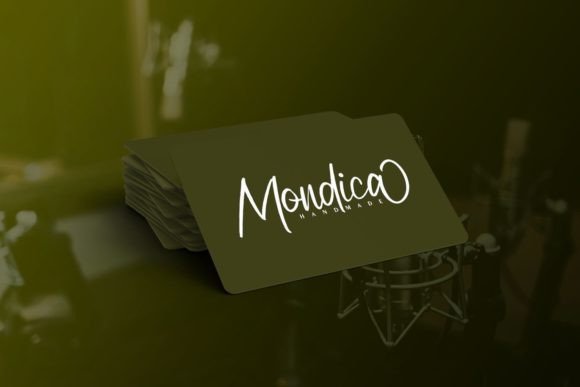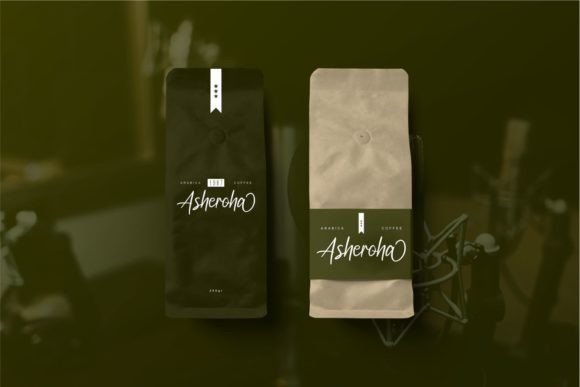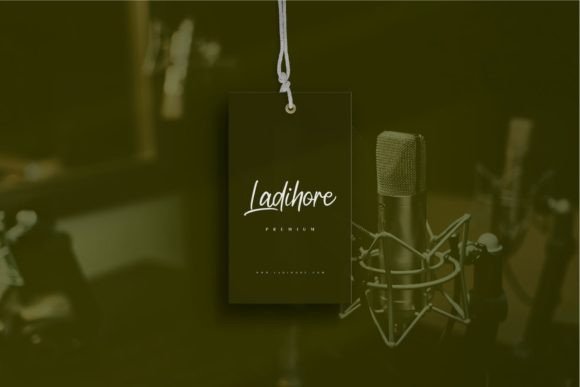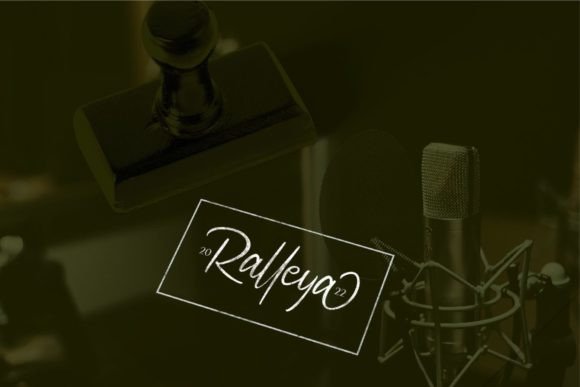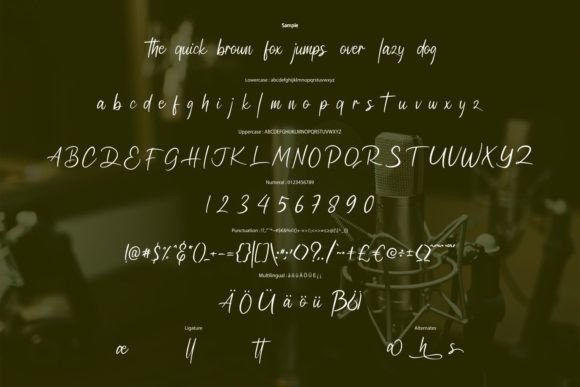
Introducing Dimthinos Font: Elevate Your Designs with Modern Calligraphy
Are you a designer or crafter looking for a unique and elegant font to elevate your creative projects? Look no further than Dimthinos Font, a modern script font with a beautiful calligraphy style. This stunning font is perfect for adding a touch of sophistication and glamour to your designs, making it ideal for a wide range of applications, from invitations and greeting cards to branding materials, business cards, quotes, posters, and more!
The Beauty of Dimthinos Font
Dimthinos Font boasts a modern script style with flowing lines and elegant curves, reminiscent of traditional calligraphy. Its unique and distinctive look makes it perfect for designers and crafters who want to add a personal touch to their work. The font’s modern twist ensures that it remains versatile and adaptable, suitable for both digital and print applications.
Dimthinos Font’s versatility is one of its standout features, making it suitable for a wide range of projects, including:
- Invitations: Whether it’s a wedding invitation, birthday party invite, or baby shower announcement, Dimthinos Font adds a touch of elegance and sophistication.
- Greeting Cards: Create beautiful and heartfelt greeting cards for any occasion, from holidays to special milestones.
- Branding Materials: Use Dimthinos Font to create stunning logos, brochures, and other branding materials that will help your business stand out.
- Business Cards: Make a lasting impression with elegant and professional business cards featuring Dimthinos Font.
- Quotes and Posters: Add a touch of inspiration and motivation to your quotes and posters with the beautiful and modern script style of Dimthinos Font.
Why Choose Dimthinos Font?
So, why should you choose Dimthinos Font for your next project? Here are just a few reasons:
- Unique and Elegant: Dimthinos Font offers a unique and elegant calligraphy style that will set your designs apart from the rest.
- Versatile: Suitable for a wide range of projects, from digital to print, and from formal to informal.
- High-Quality: Dimthinos Font is a high-quality font, carefully crafted to ensure that it looks great in any application.
Tips for Using Dimthinos Font
To get the most out of Dimthinos Font, here are a few tips:
- Pair with Other Fonts: Experiment with pairing Dimthinos Font with other fonts to create stunning contrast and visual interest.
- Use in Combination with Images: Combine Dimthinos Font with beautiful images to create eye-catching and effective designs.
- Experiment with Colors: Try out different colors and textures to add depth and interest to your designs featuring Dimthinos Font.